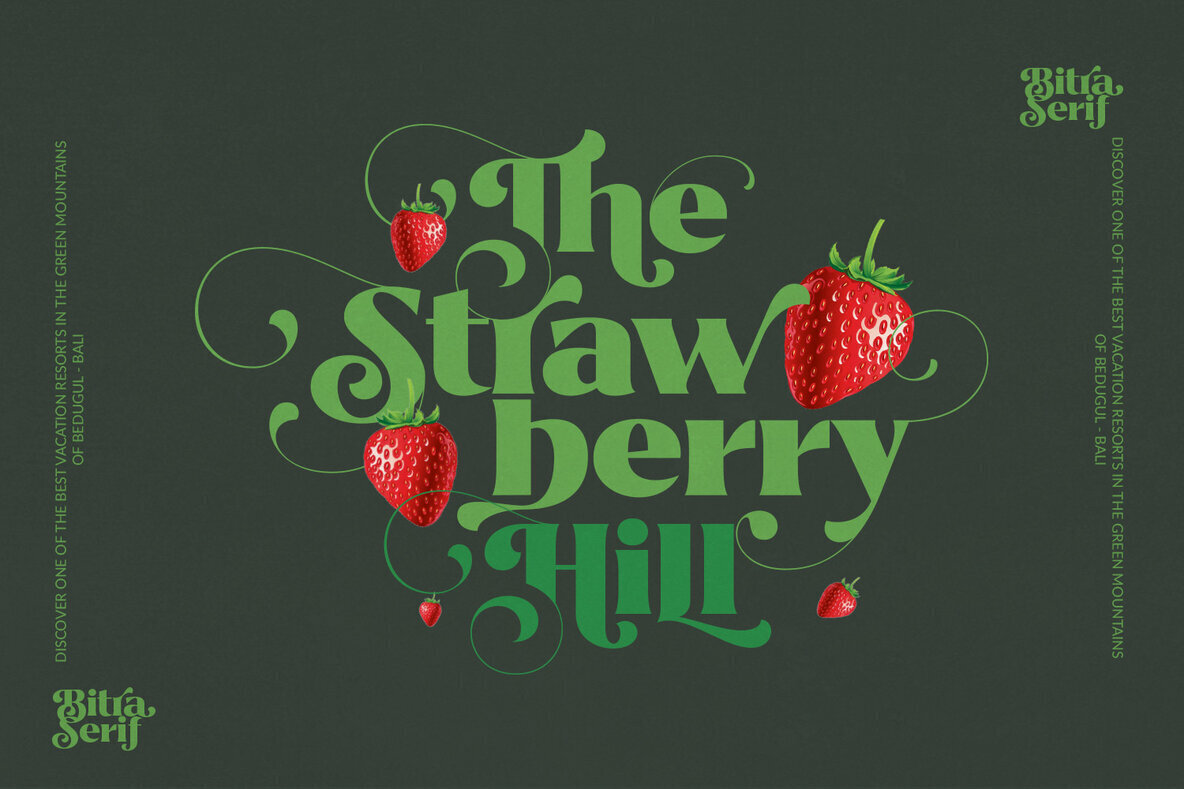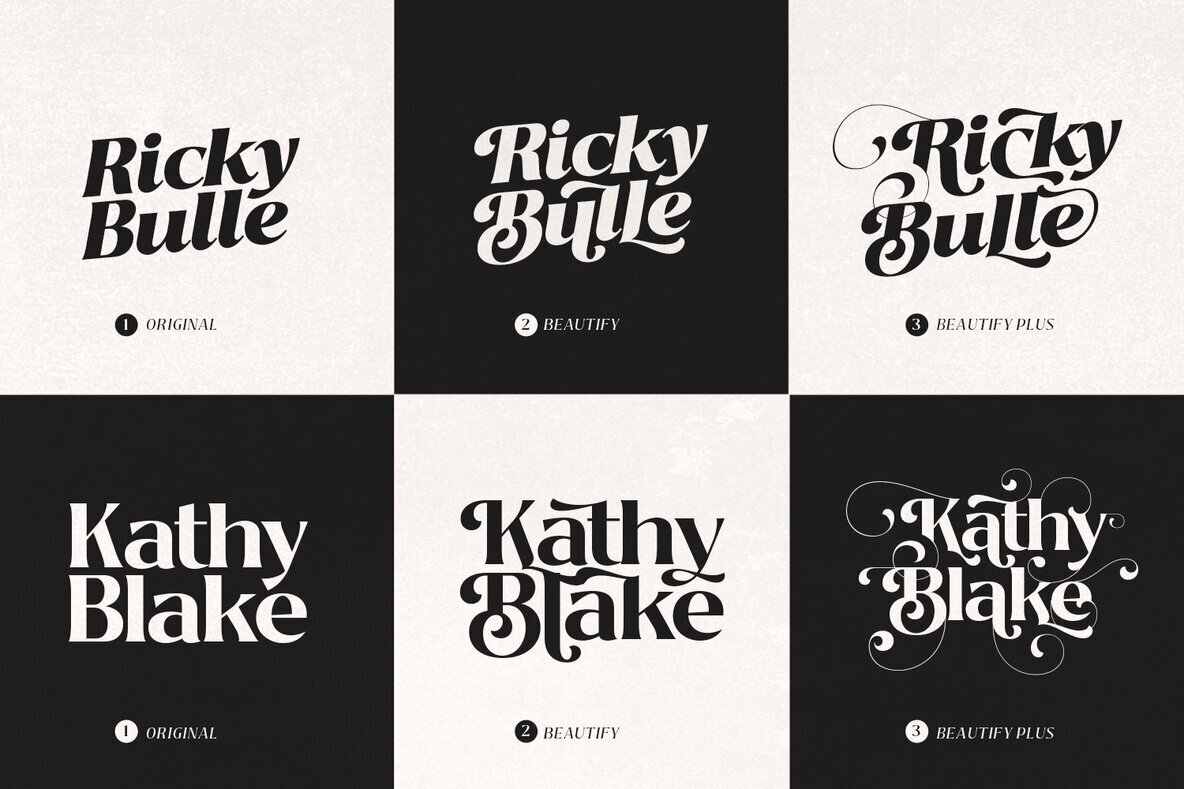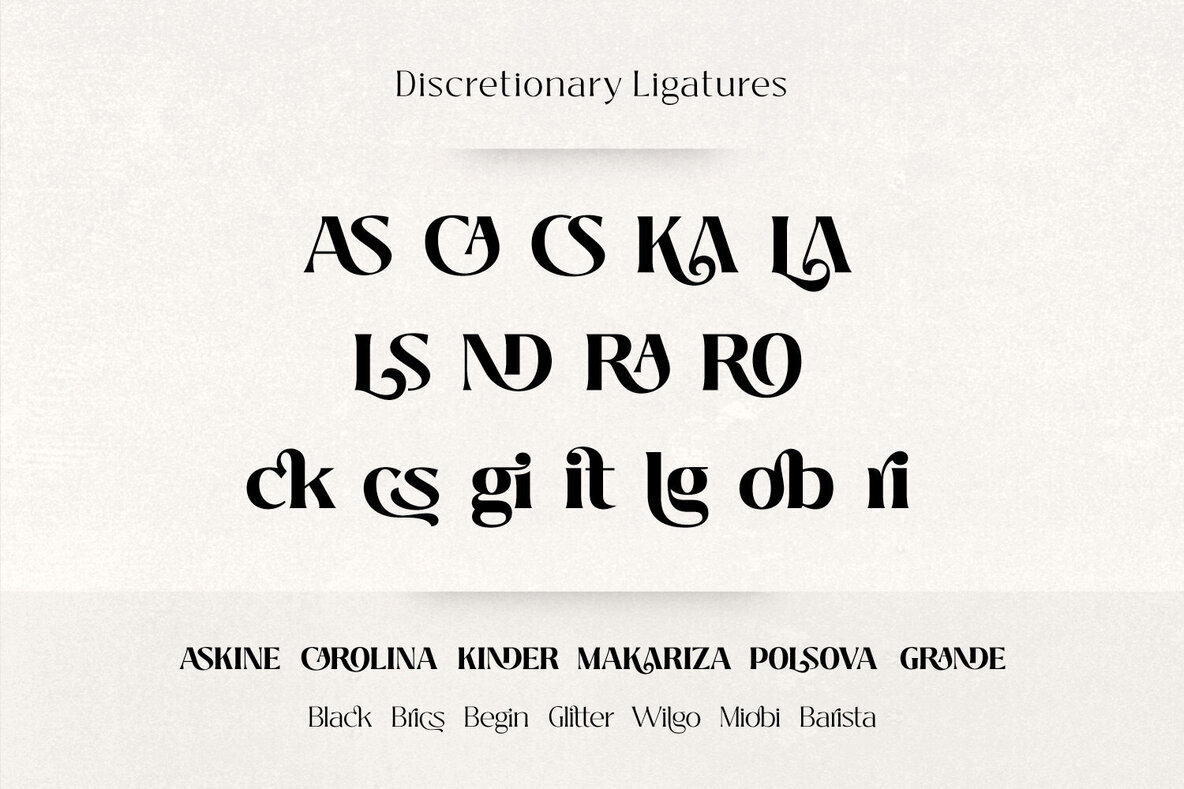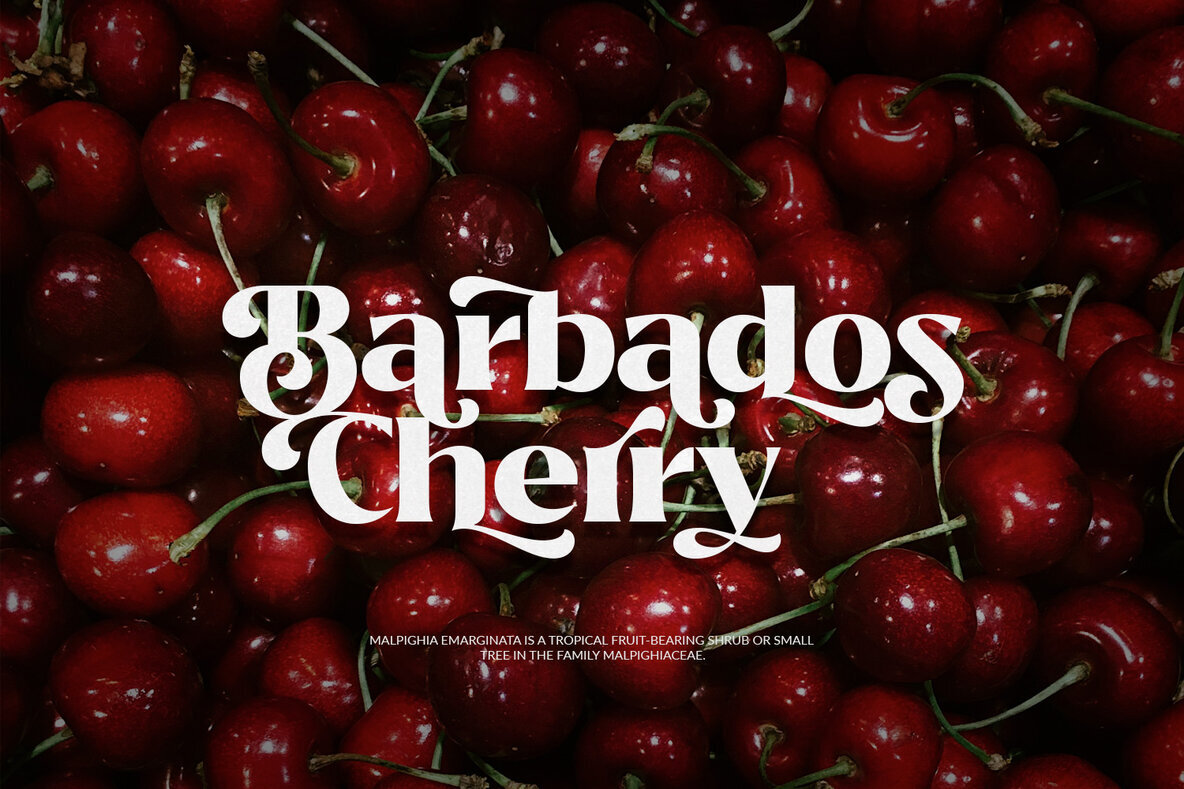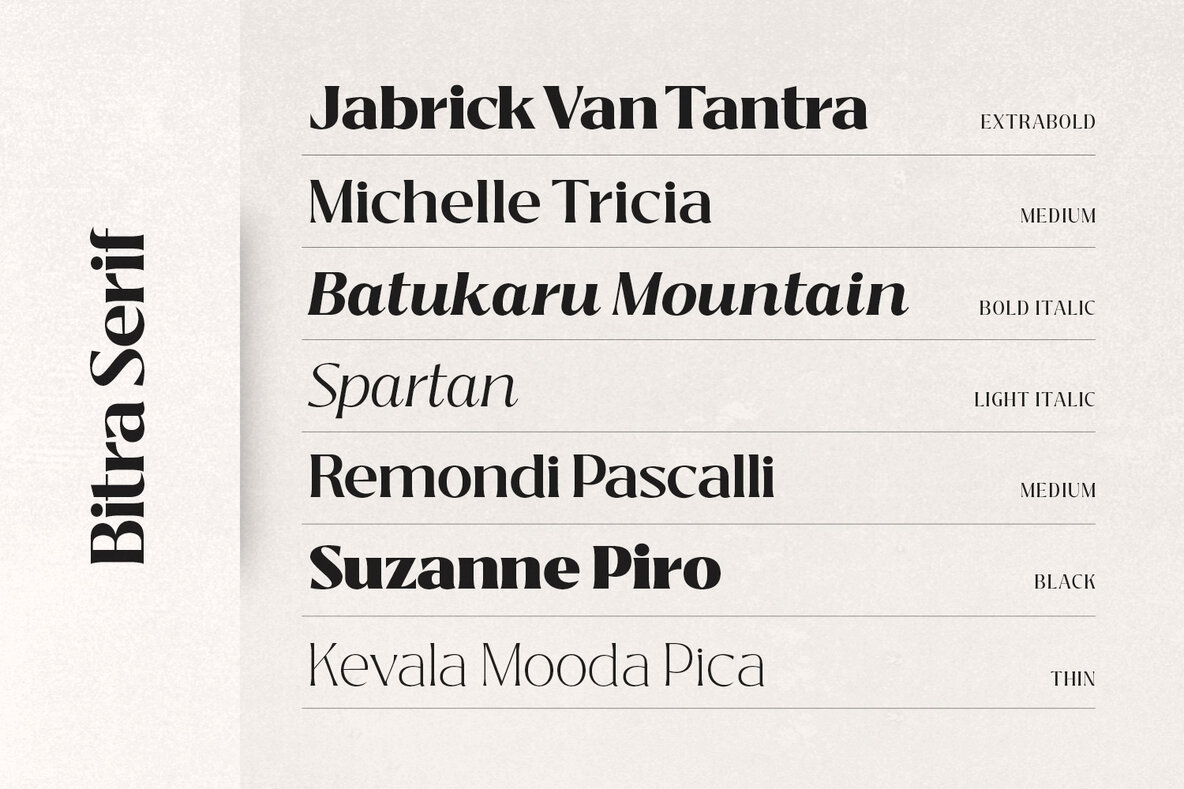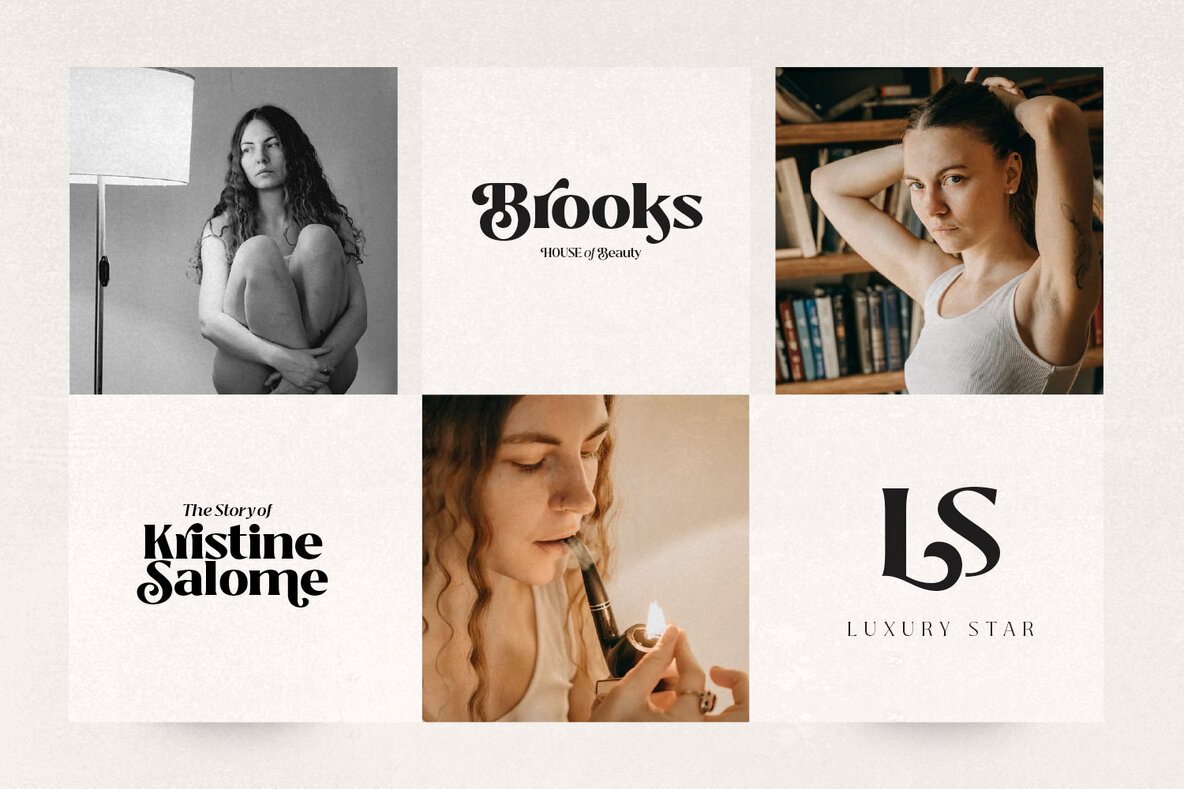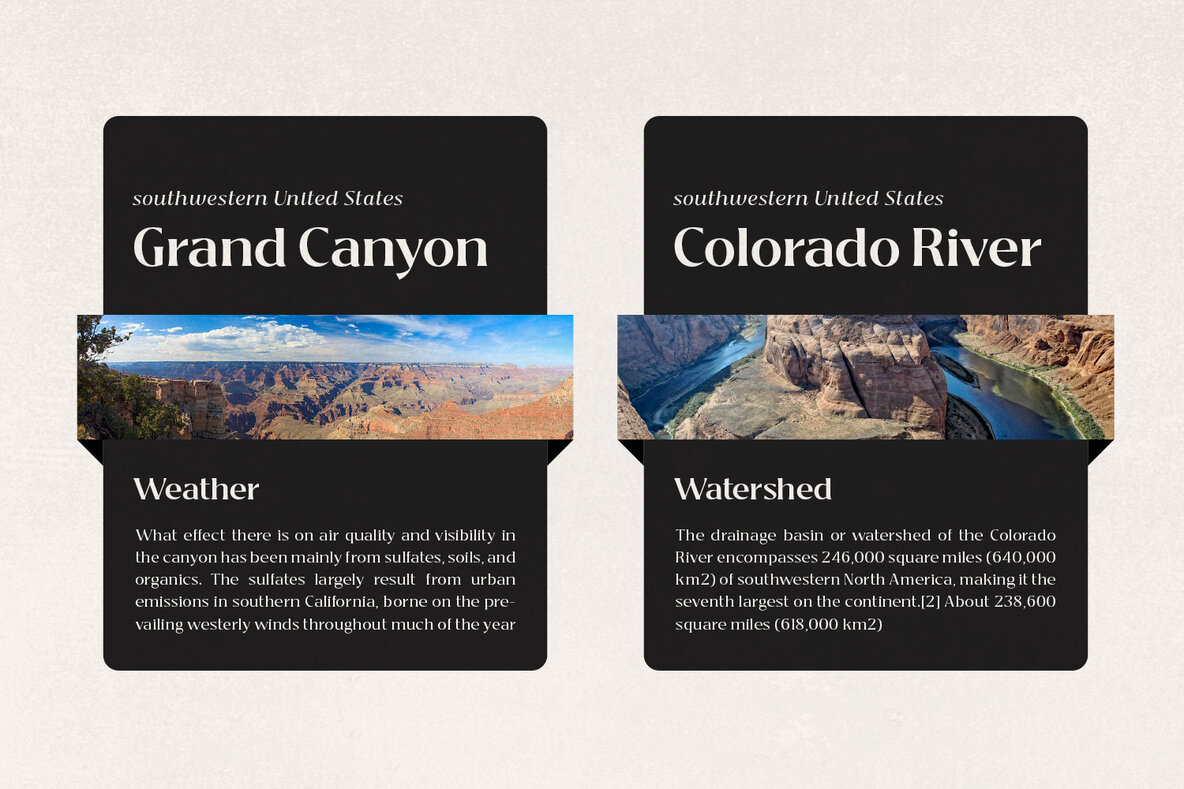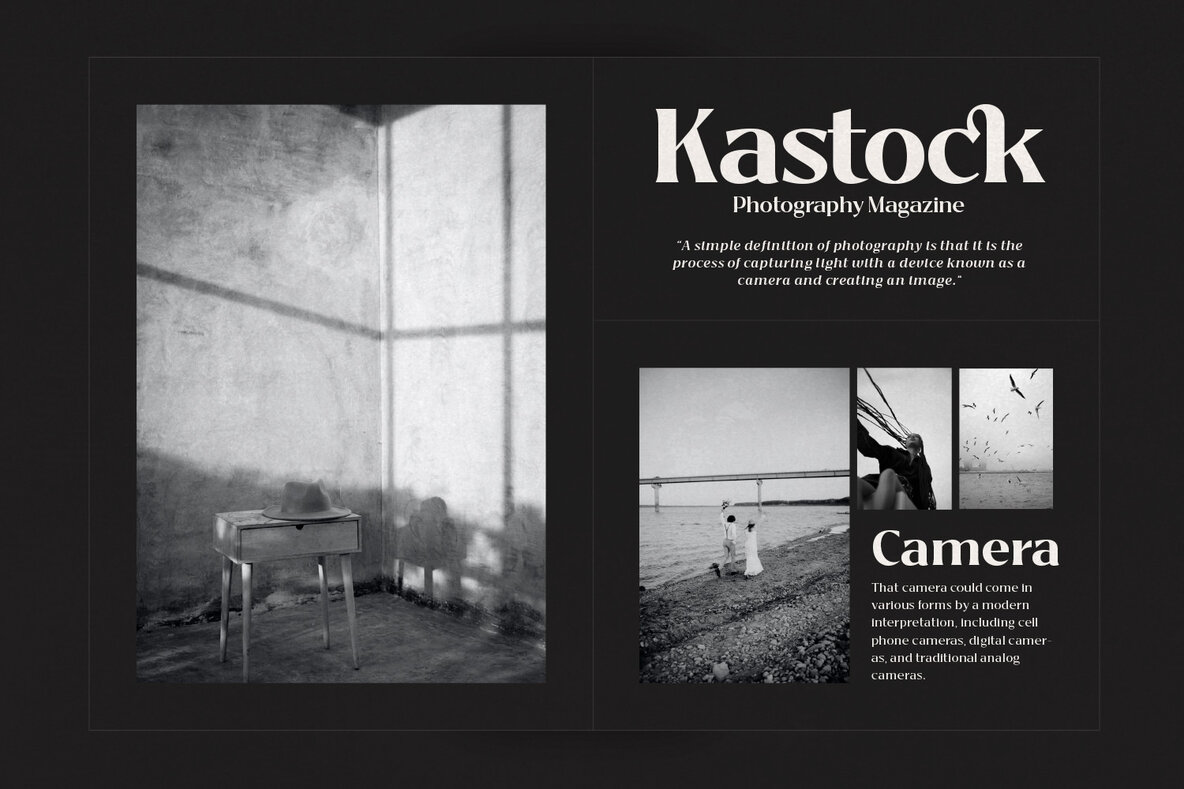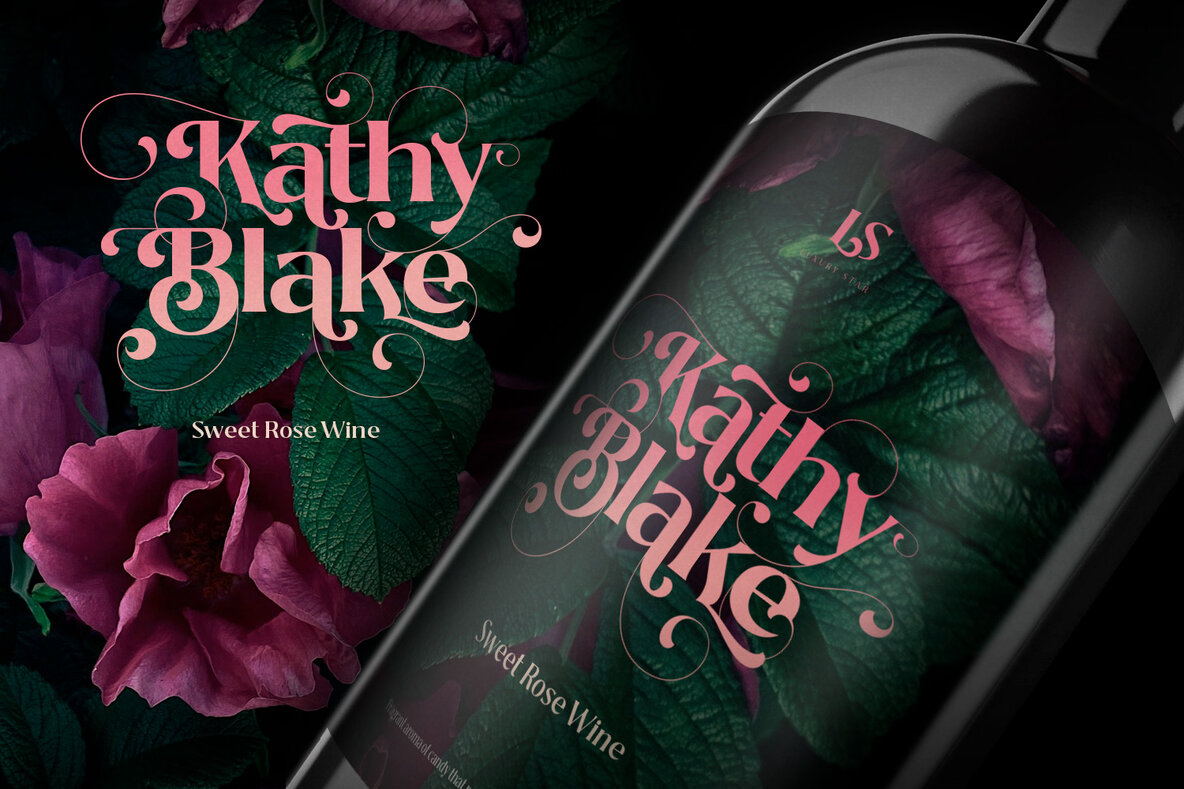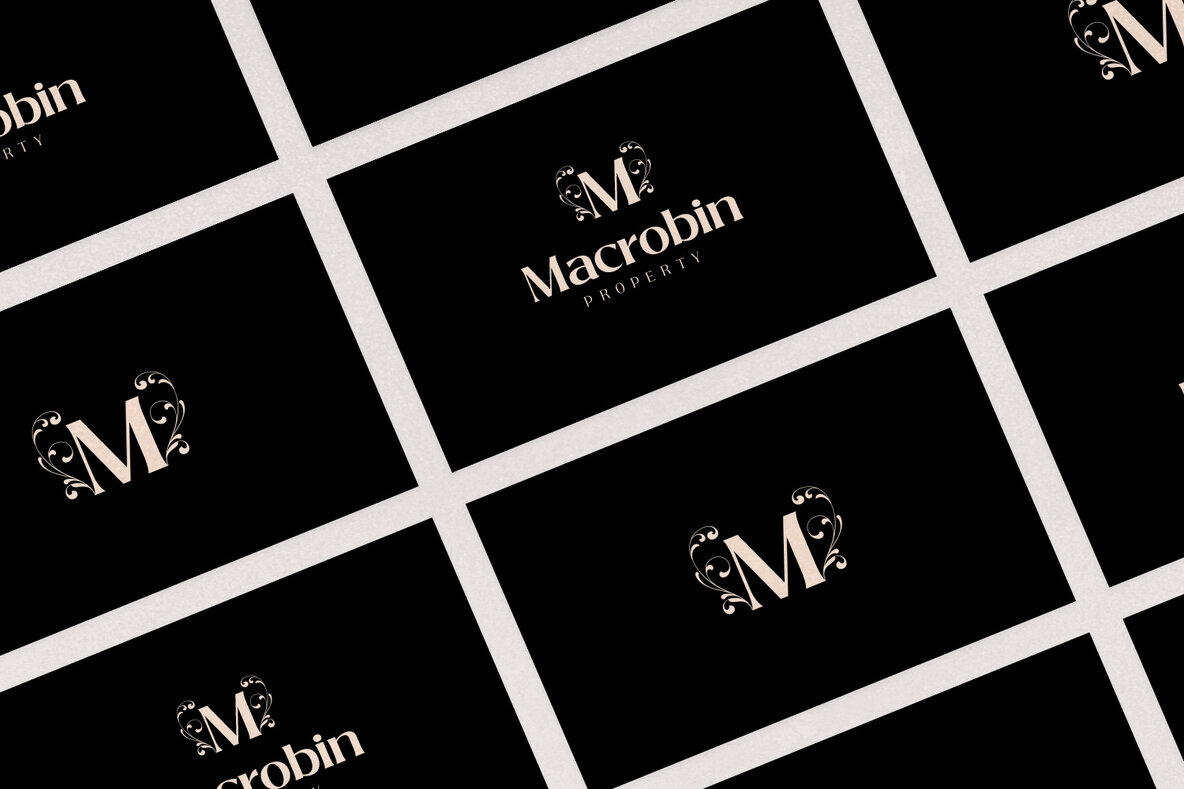
Bitra Font
Bitra is a refined serif family that embodies beauty and versatility. Its elegant design, complete with a wealth of alternative characters, introduces a playful and creative dimension to your projects. Inspired by the intricate tail of the bird of paradise, Bitra's excessive flourishes turn every letter into a visual delight.Bitra: Sophisticated Serif with Flourish